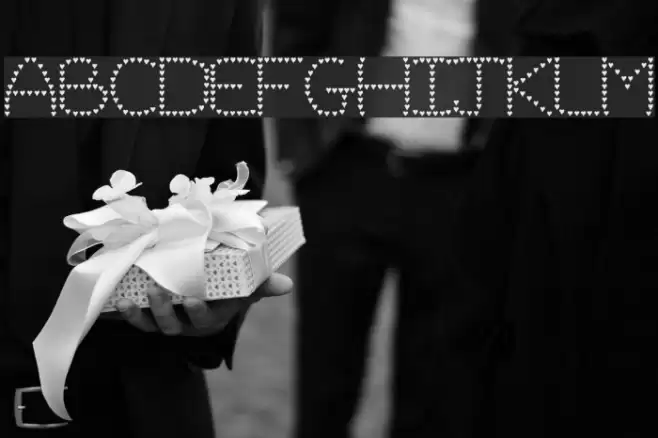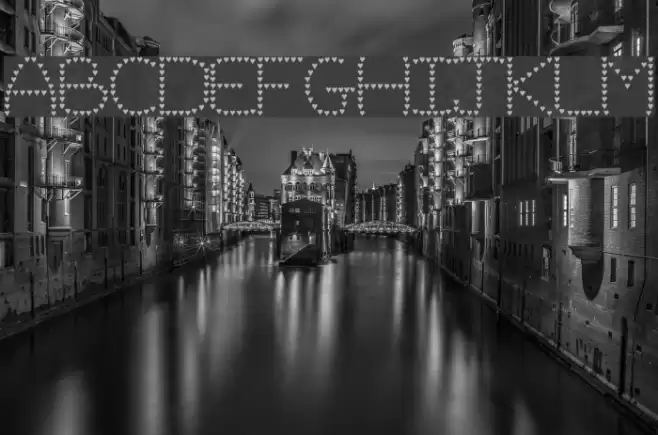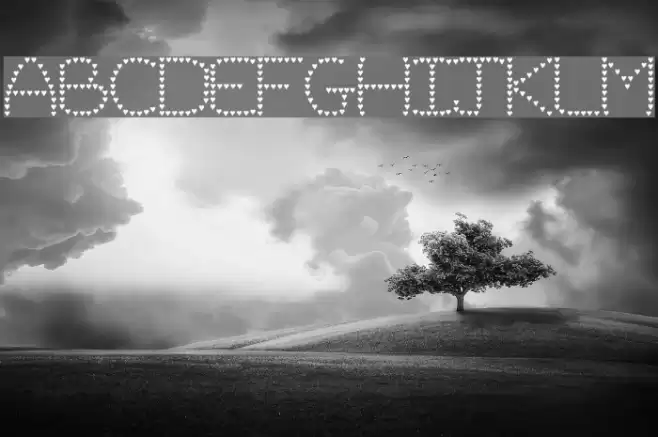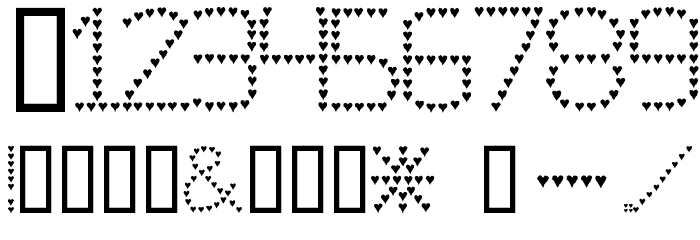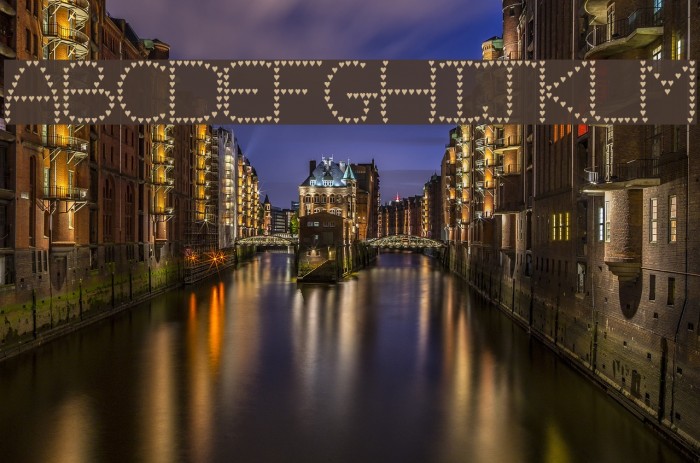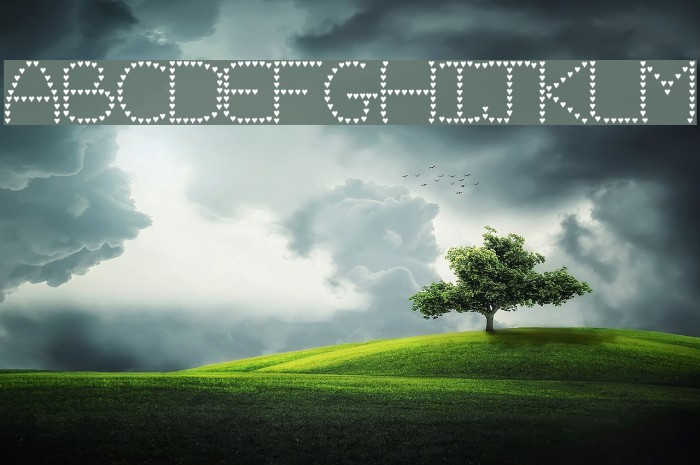
Evelyn's Heart Font
Evelyn's Heart Description
This font is characterized by its unique and playful design, where each character is composed of small heart shapes. The uppercase and lowercase letters, as well as numbers and special characters, are all formed using this heart motif, giving the font a whimsical and romantic feel. The design is consistent across all characters, maintaining a uniform appearance that is both decorative and legible. The heart shapes are evenly spaced, creating a cohesive look that is visually appealing. This font is ideal for projects that require a touch of charm and creativity, such as greeting cards, wedding invitations, or any design that aims to convey love and affection.
A playful font composed entirely of small heart shapes, perfect for romantic and whimsical designs from Dotted fonts.
- Proposed Projects: Ideal for wedding invitations, Valentine's Day cards, love-themed posters, and decorative crafts.
- Use Case: Headlines, Logos, Decorative text